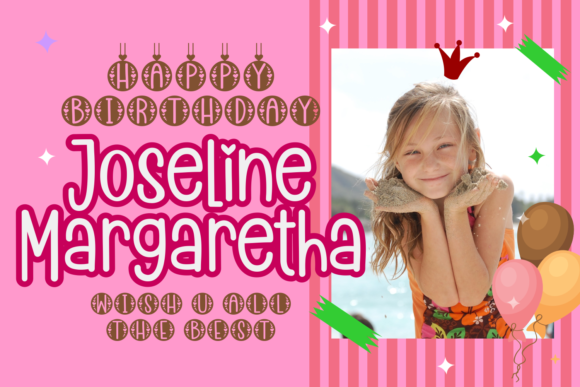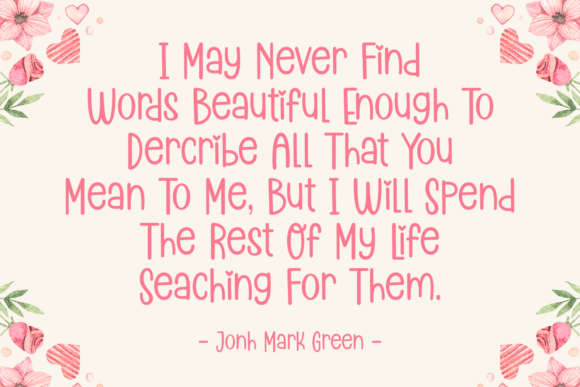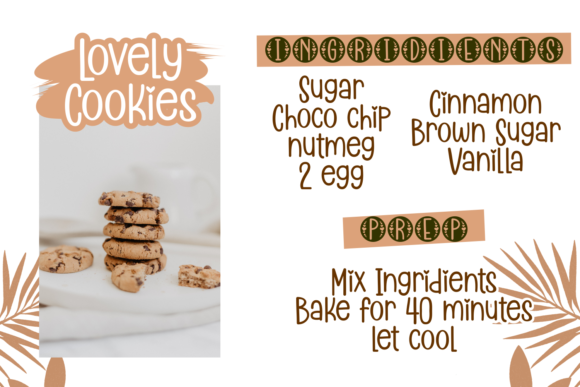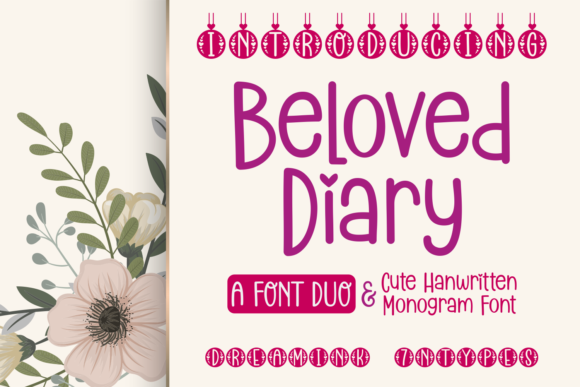
Introduction to Beloved Diary Font
Beloved Diary is a cute and whimsical handwritten font.
Dainty and joyful, this font will be ideal for writing wedding invitations, cards or any other design that may need a romantic, personalized touch .